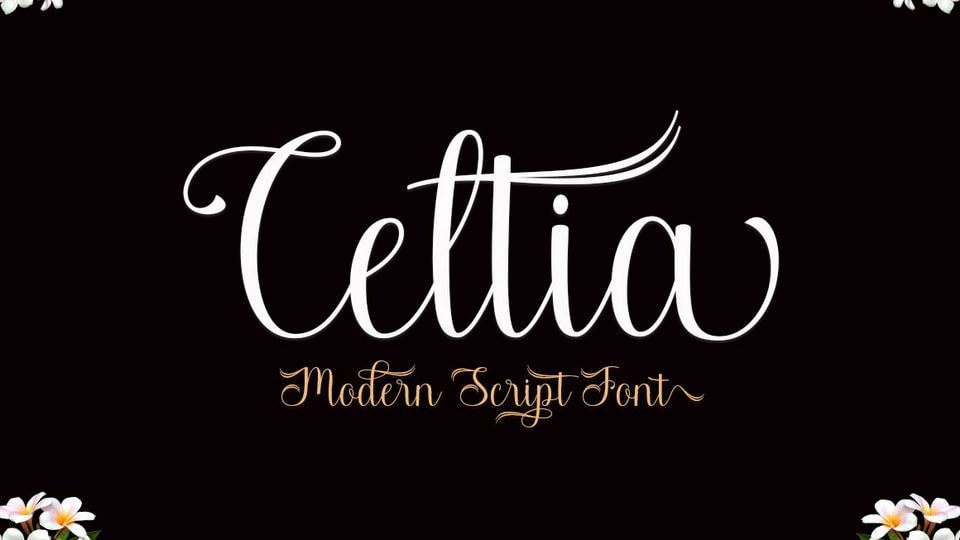
Feb 3, 2025Script & HandwrittenCeltia Font Celtia is a unique and elegant handwritten font. It looks beautiful on a variety of designs requiring a personalized style, such as wedding invitations, thank you cards, weddings, greeting cards, logos and so on. Font DetailsDesigned by: Stripes StudioWebsiteLicense: Free for personal use Download Celtia FontFile size: 200.26 KBCreated: February 16, 2025Updated: February 16, 2025 Download Explore similar fonts Anantha Font Romantic Diary Font Golden Authentic Font Callient Font Natalie Caydence Font Aaksaraan Rania Font # Calligraphy# Hand-drawn# Handwriting# Pretty More fonts by Stripes StudioRosamila FontFabulous Script FontJasmitha Script FontWiltona Brush FontInk Hill Brush FontSchuyler Script FontPust Thing FontStrong Brush Font